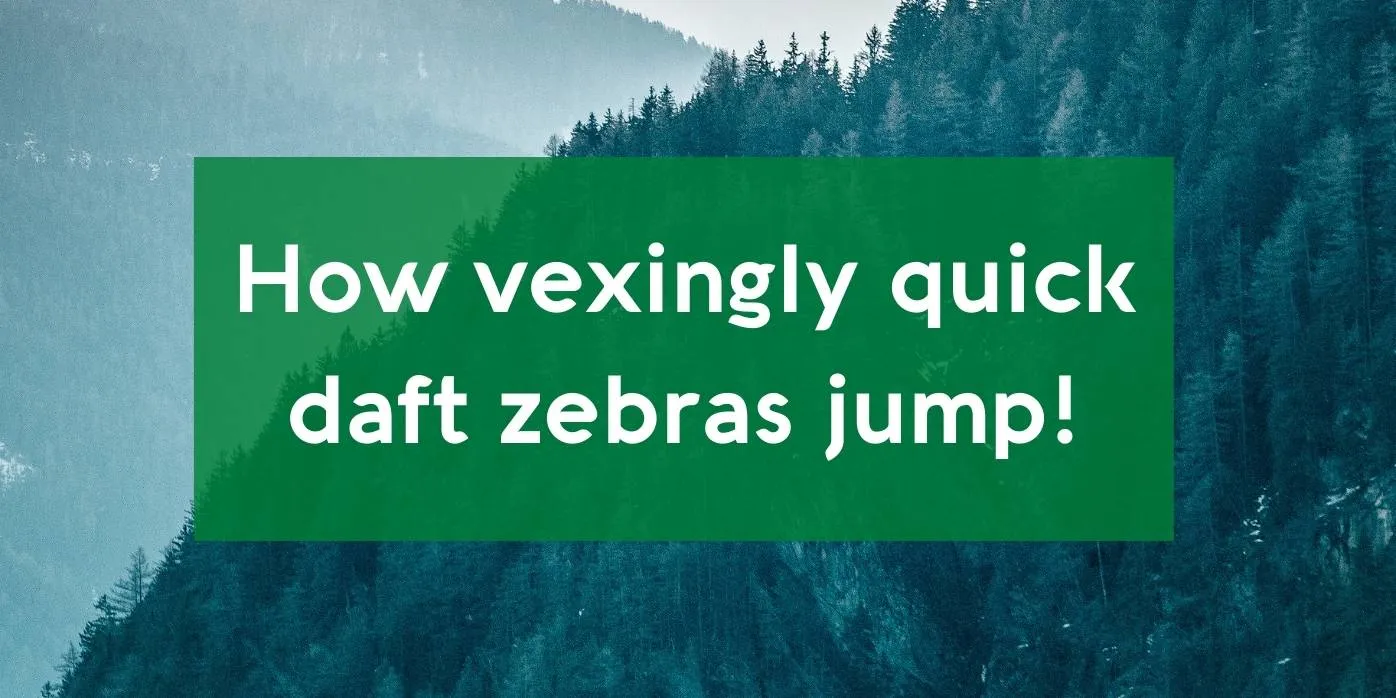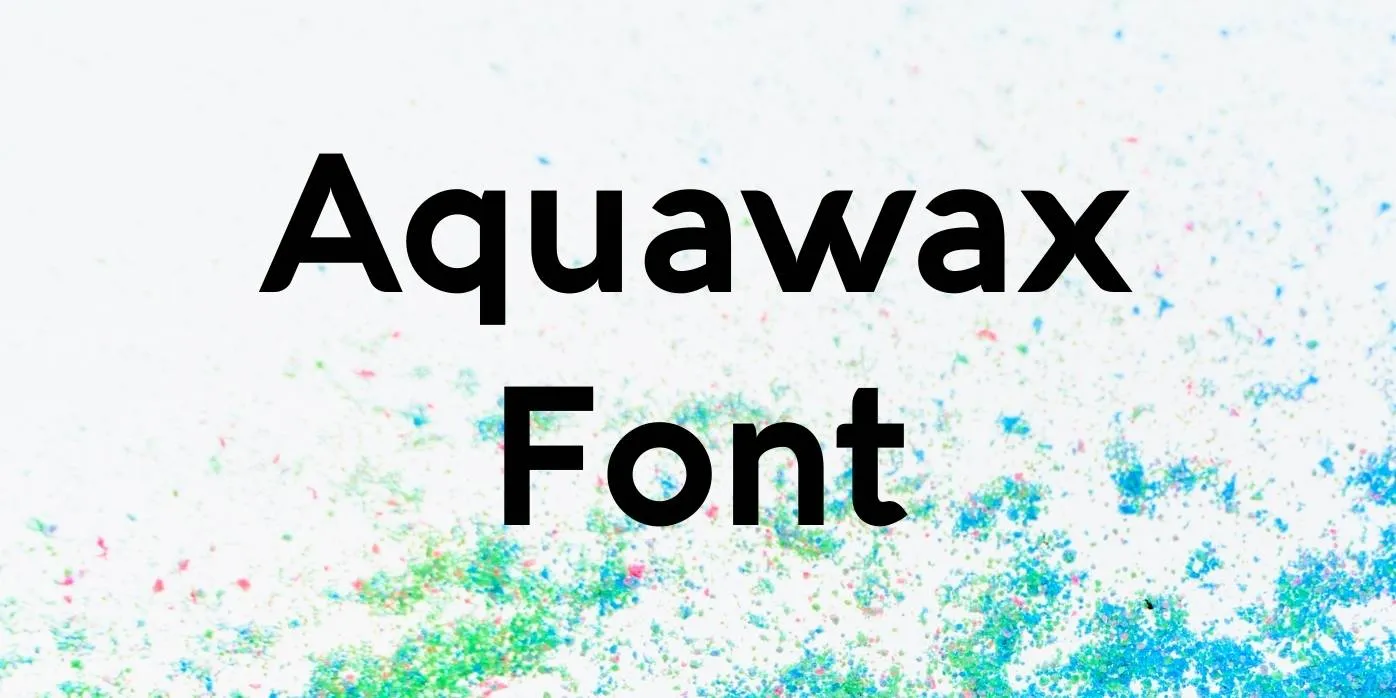
Aquawax Font
Here, we present Aquawax Font a family-run business, started by Zeta fonts who had a passion for fonts and design. It belongs to the Sans-Serif typeface family. Inspired by the geometric shapes of early 20th-century avant-garde, it features clean lines and a minimalist approach. The result is a modern, yet timeless typeface.
It has been used by some of the world’s leading brands, including Nissan, and Adidas. It is also a popular choice for web and app design. It is available in three weights light, Black, and bold. It also includes a wide range of characters, including support for Latin, Cyrillic, and Greek languages.